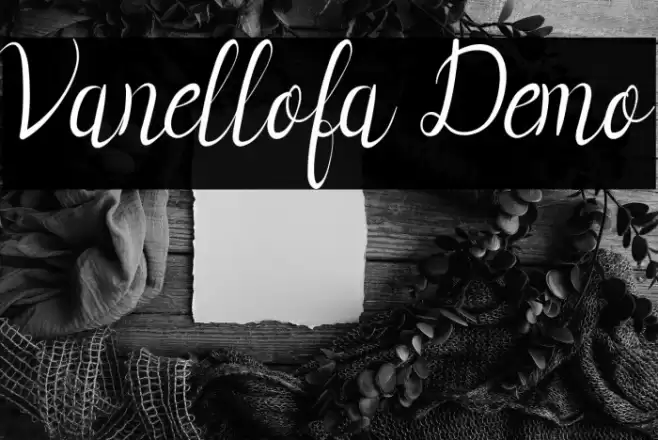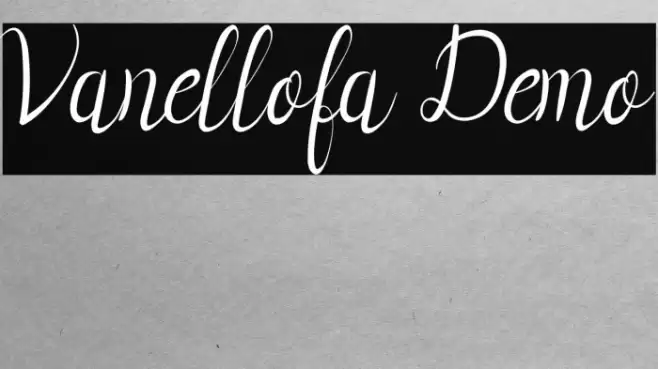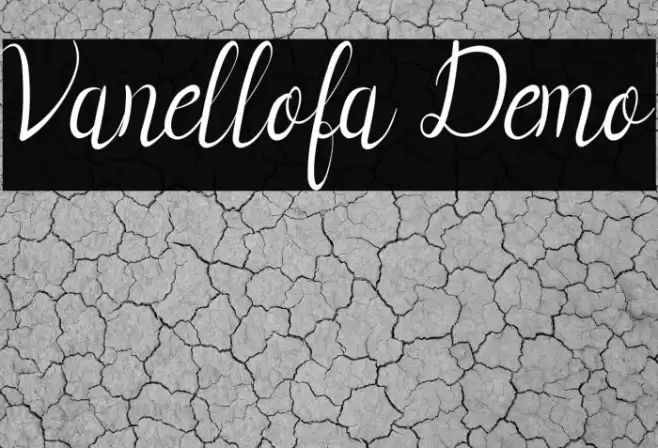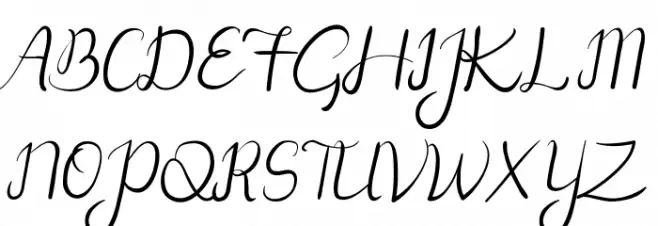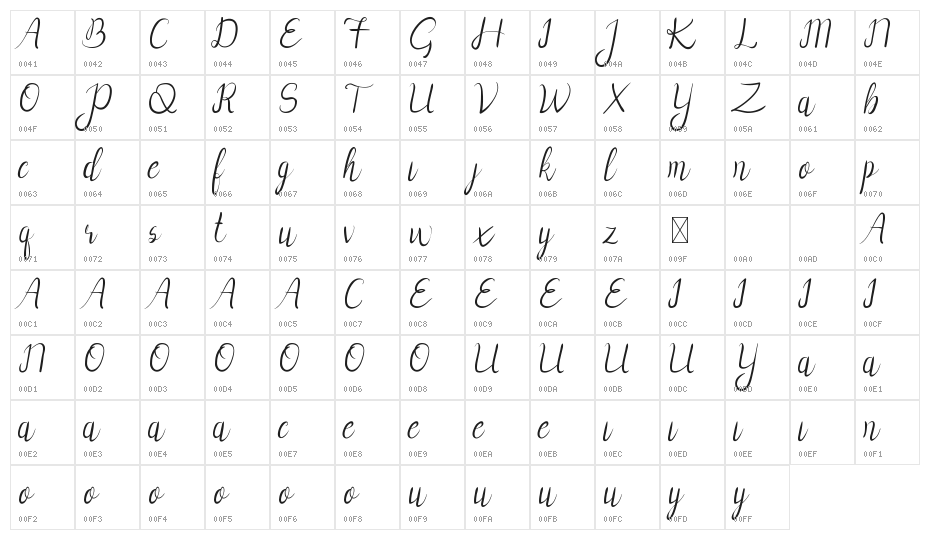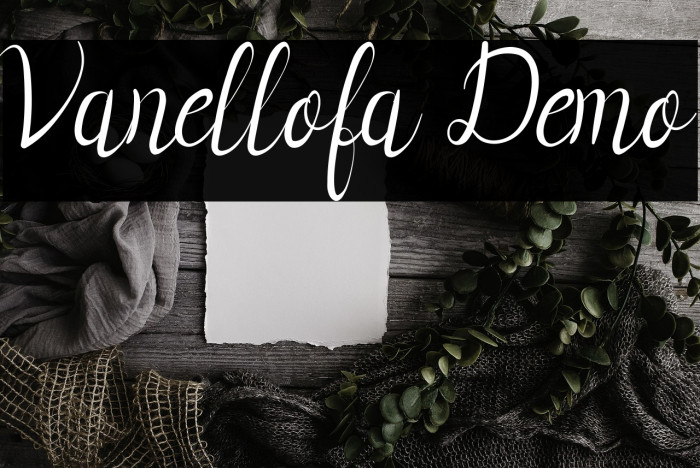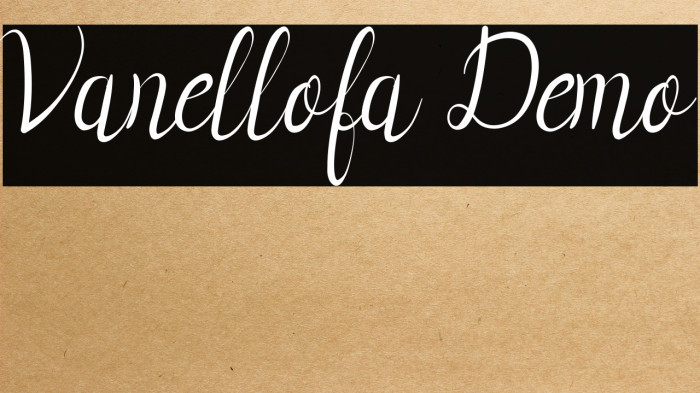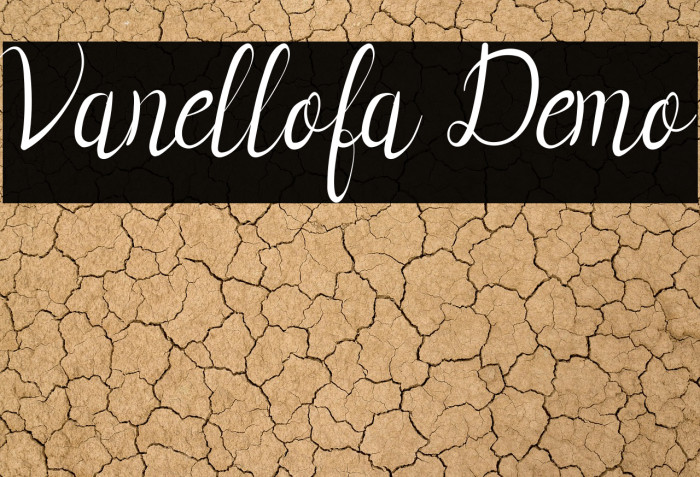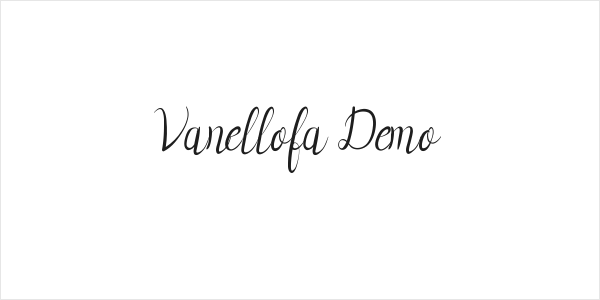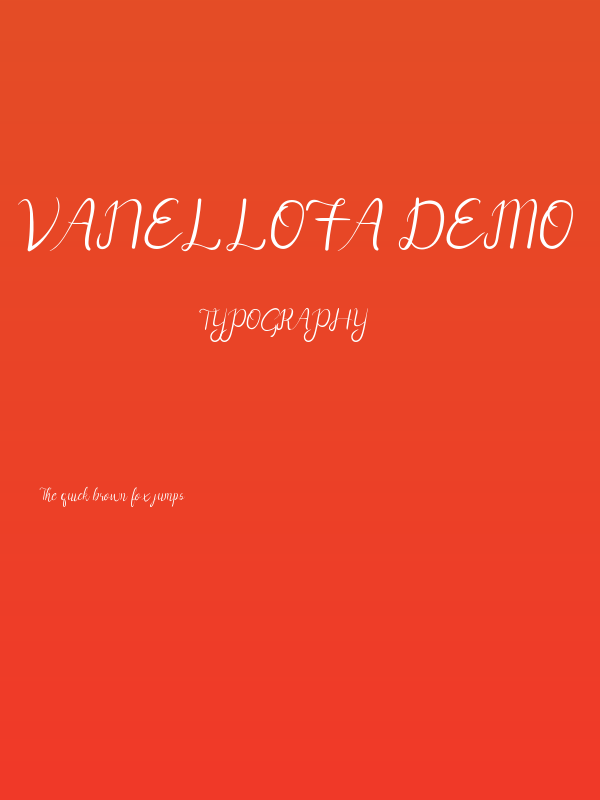
Vanellofa Demo Font
Vanellofa Demo Description
This elegant script font features a flowing, cursive style with a modern twist. The uppercase letters are characterized by their graceful loops and swirls, giving a sense of fluidity and motion. The lowercase letters maintain a consistent rhythm, with elongated ascenders and descenders that add to the font's sophisticated appearance. The overall design is both stylish and legible, making it suitable for a variety of creative applications. The font includes a full set of uppercase and lowercase letters, numerals, and a selection of special characters, ensuring versatility in design projects.
A modern, elegant script font with flowing, cursive characters from Regular fonts.
- Proposed Projects: Ideal for wedding invitations, branding, greeting cards, and elegant packaging designs.
- Use Case: Logos, Invitations, Branding